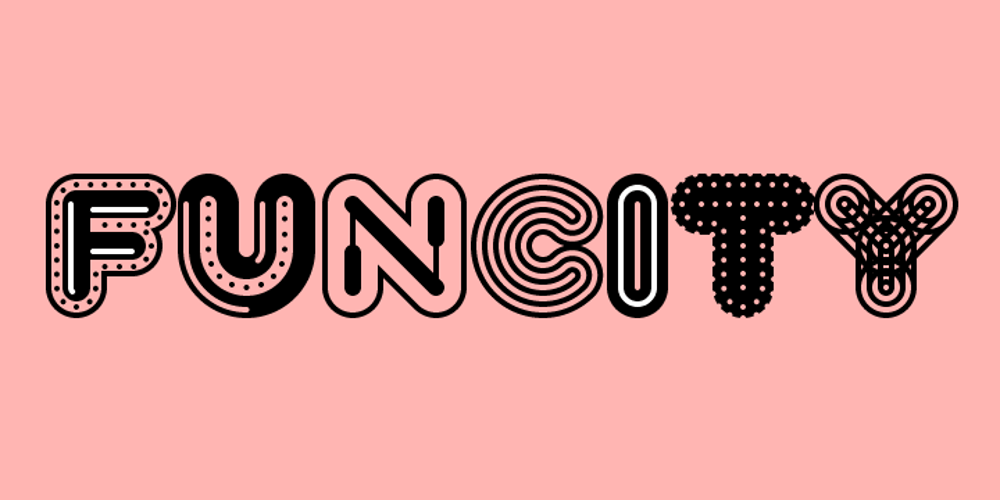
Fun City Font Family was designed by Abstrkt Design Team and published by ABSTRKT. Fun City contains 22 styles and family package options. FunCity is a family of typefaces designed for multi-layered use. There are six levels of letter thickness from thin to extremely bold and all styles of the family represent basically a different variations of the same letterforms. As the same letters in every typeface in this family use the same amount of space, it creates a possibility of overlaying and using more than one style simultaneously, which lead to almost endless variations.